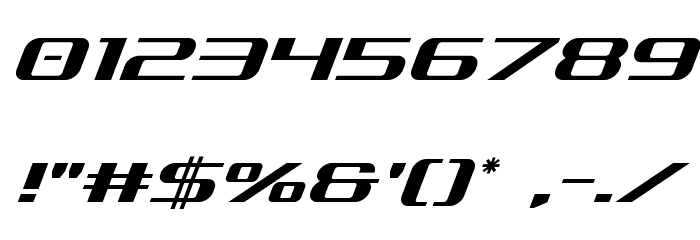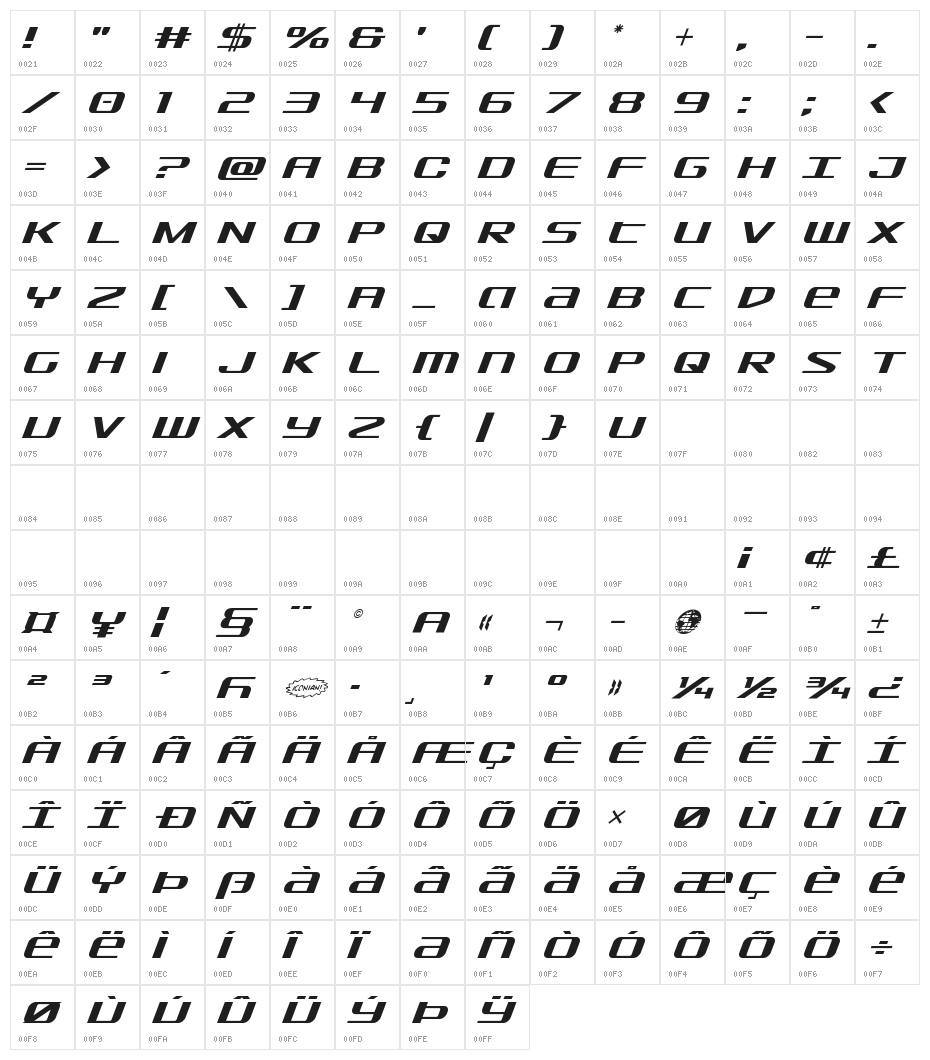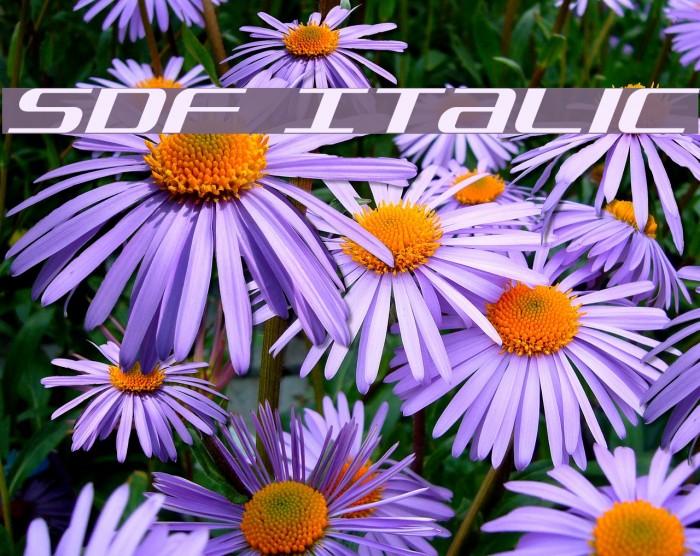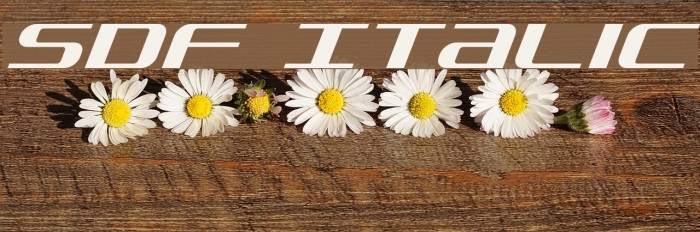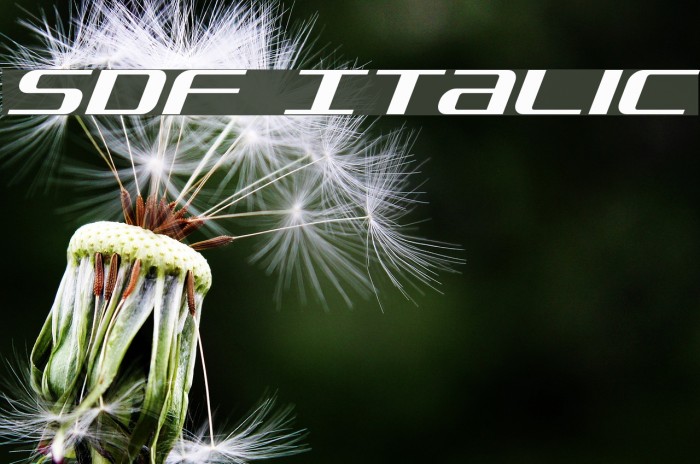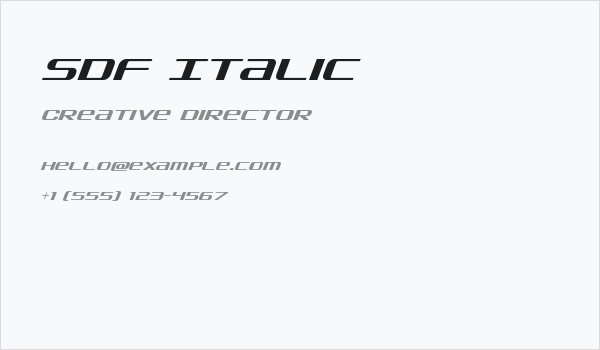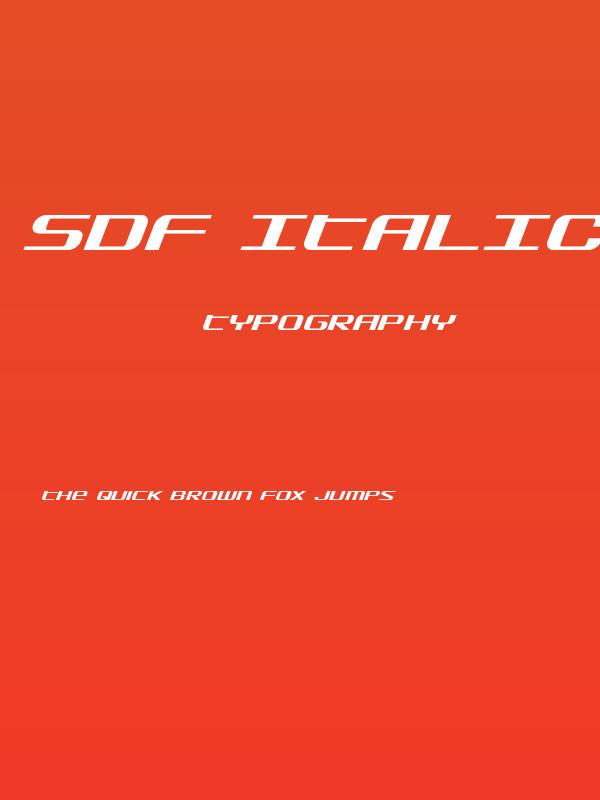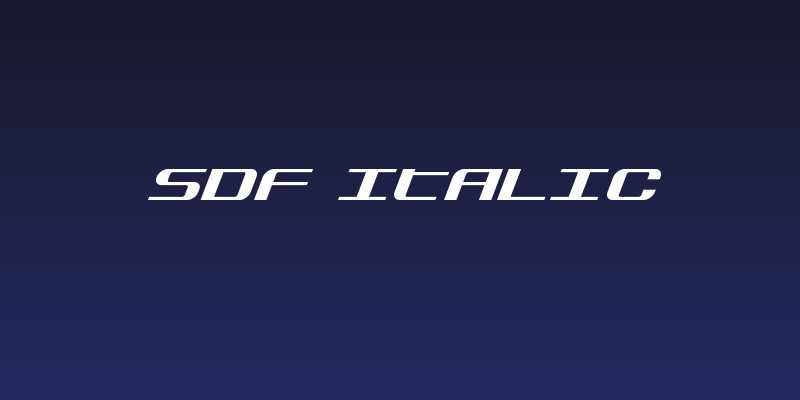
SDF Italic Font
SDF Italic Description
This font features a sleek, modern design with italicized characters that convey a sense of motion and speed. The letters are slightly slanted, enhancing the dynamic appearance. The strokes are consistent in width, providing a uniform look across all characters. The font maintains a futuristic aesthetic, making it suitable for projects that require a contemporary and energetic feel. The numerals and special characters are designed to match the overall style, ensuring cohesion throughout any text. This font is ideal for use in branding, advertising, and digital media where a modern and stylish impression is desired.